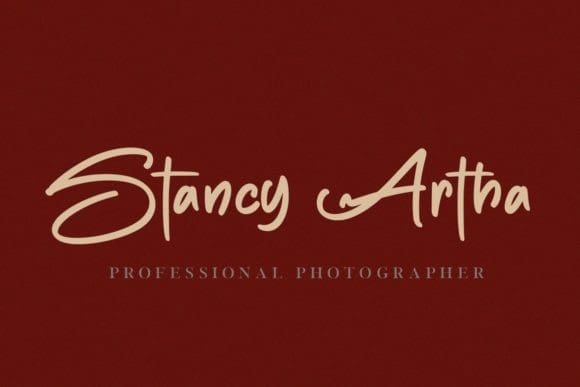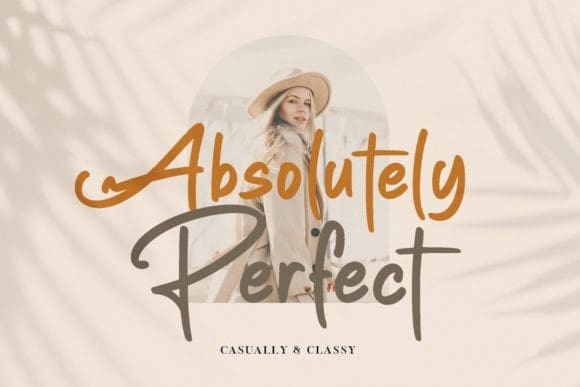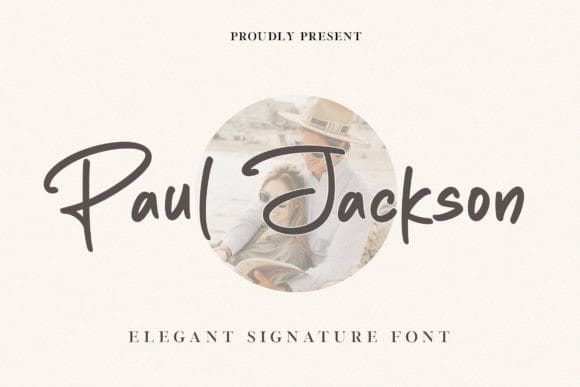
Paul Jackson Font
Paul Jackson Font is a simple and flowing handwritten font. This adaptable font will look great on a variety of design ideas. It will add a fun and friendly touch to each of your projects!